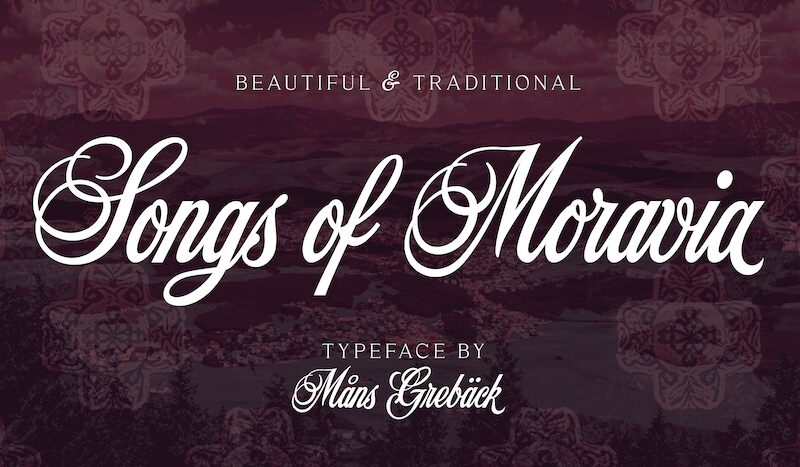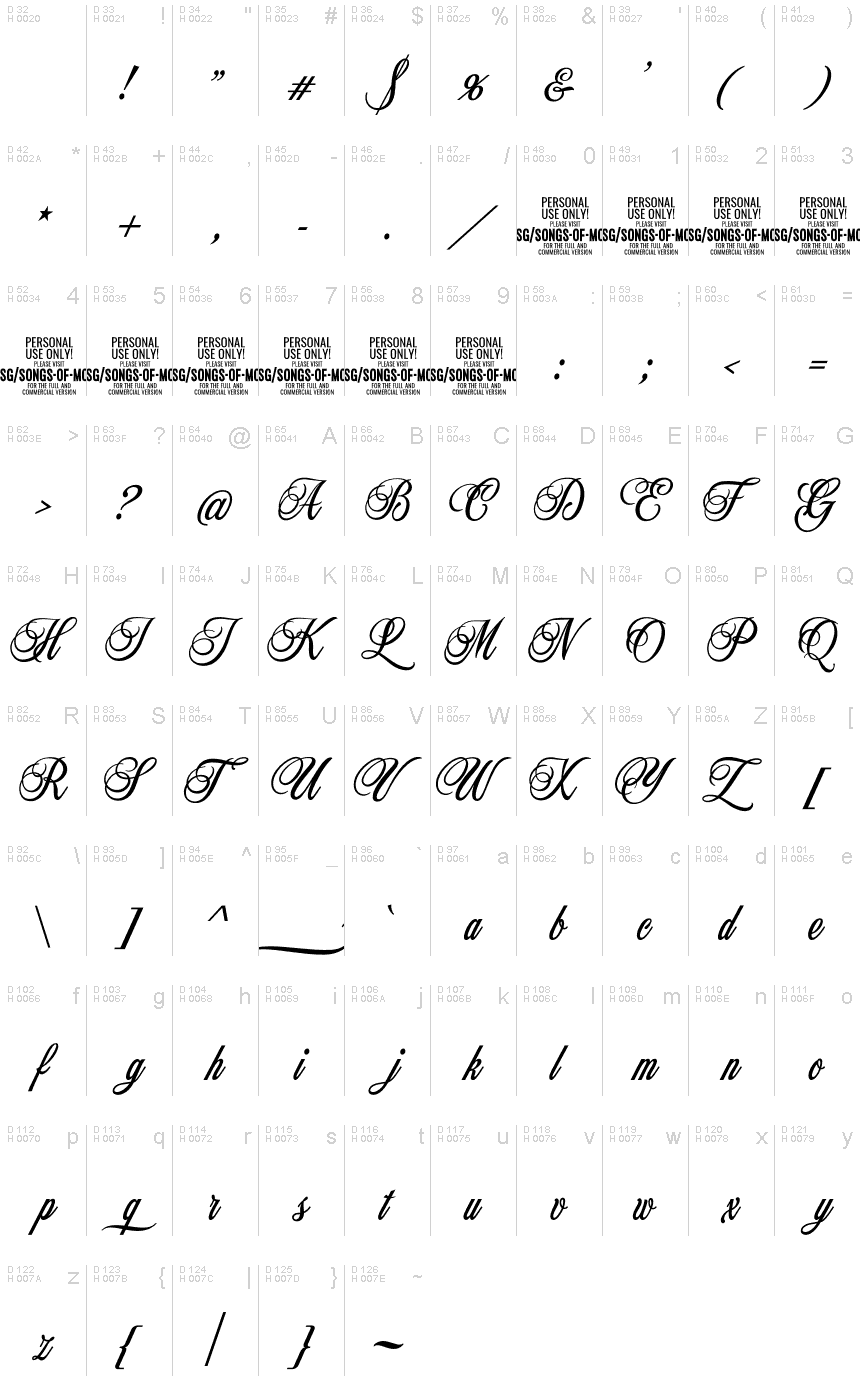
Songs Of Moravia PERSONAL USE Regular
Songs of Moravia, created by Mans Greback, is a mesmerizing calligraphy font that transports you to the romantic landscapes of Moravia. With its semi-light weight and semi-condensed width, this font strikes a perfect balance between elegance and readability.
Ideal for wedding invitations, love letters, and poetry books, Songs of Moravia adds a touch of sophistication to any project. Its ornate capitals adorned with delicate swashes and swirls create a visual symphony that speaks to the rich heritage and melodious charm of European design. Let this enchanting script typeface serenade your creative endeavors with its timeless beauty.
Use underscore _ to make a swash after any word, or multiple underscores for different lengths.
Example: Baseball_